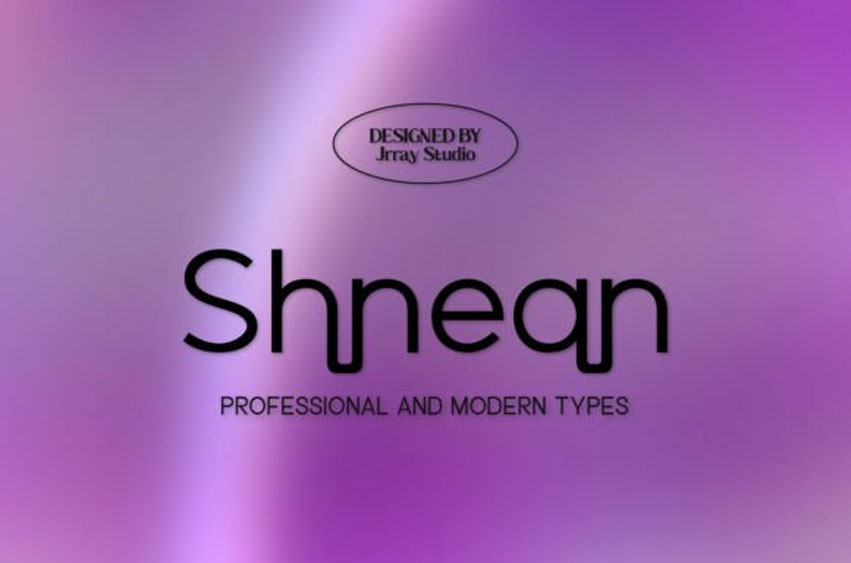
Shnean Font
Shnean Font is a Professional and Modern Sans-Serif font. Shnean is designed to be an easy go-to for branding, web, print design projects, and others.
Most suitable for poster design, headlines, quote writing, pamphlets, greeting cards, product packaging, book covers, logotypes, album covers, etc.